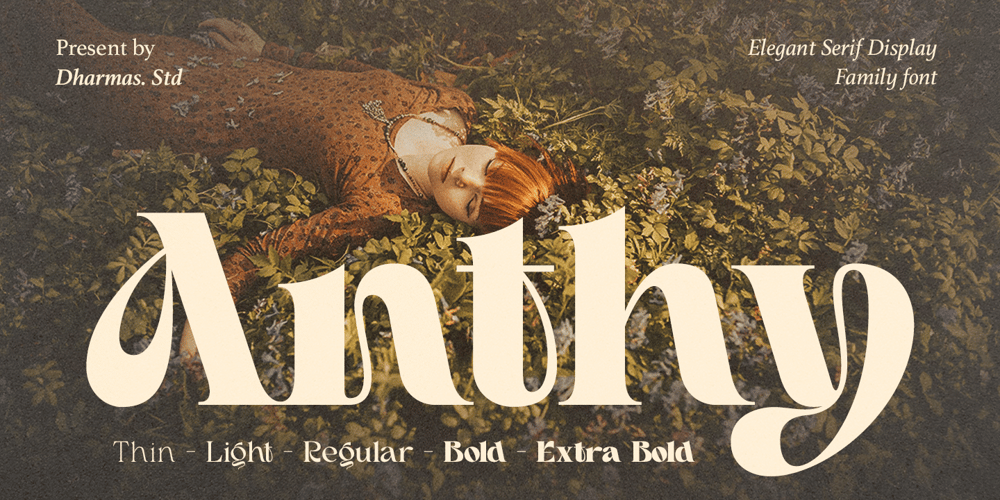
Anthy
Anthy font
Anthy Font Family was designed by Ahmad Jamaludin and published by Ahmad Jamaludin. Anthy contains 5 styles and family package options. Introducing Anthy – A brand display serif with a different letter shape than usual!Anthy is a modern serif family featuring tightly-spaced serifs reminiscent of the 80s and 90s, making a stylish comeback. We aimed to create the perfect font for you too!With 5 style families (Thin to Extra Bold) and unique ligatures, Anthy suitable for short text and long words such as headlines, logos, UI design, magazine text, product descriptions, and other design needsWhat’s Included? Anthy Main Files Family Font (Thin, Light, Regular Bold, ExtraBold) Unique 64 Special Alternates and Ligatures Instructions (Access special characters in all apps, even in Cricut Design) Accessible in Adobe Illustrator, Adobe Photoshop, Microsoft Word even Canva! PUA Encoded Characters. Fully accessible without additional design software Language Support: Danish, English, Estonian, Filipino, Finnish, French, Friulian, Galician, German, Gusii, Indonesian, Irish, Italian, Luxembourgish, Norwegian Bokmål, Norwegian Nynorsk, Nyankole, Oromo, Portuguese, Romansh, Rombo, Spanish, Swedish, Swiss-German, Uzbek (Latin)If you need a custom license or have questions please visit our website: www.dharmasstudio.com or come and say hello over on Instagram! https://www.instagram.com/dharmas.studio/Have a great day!Dharmas Studio